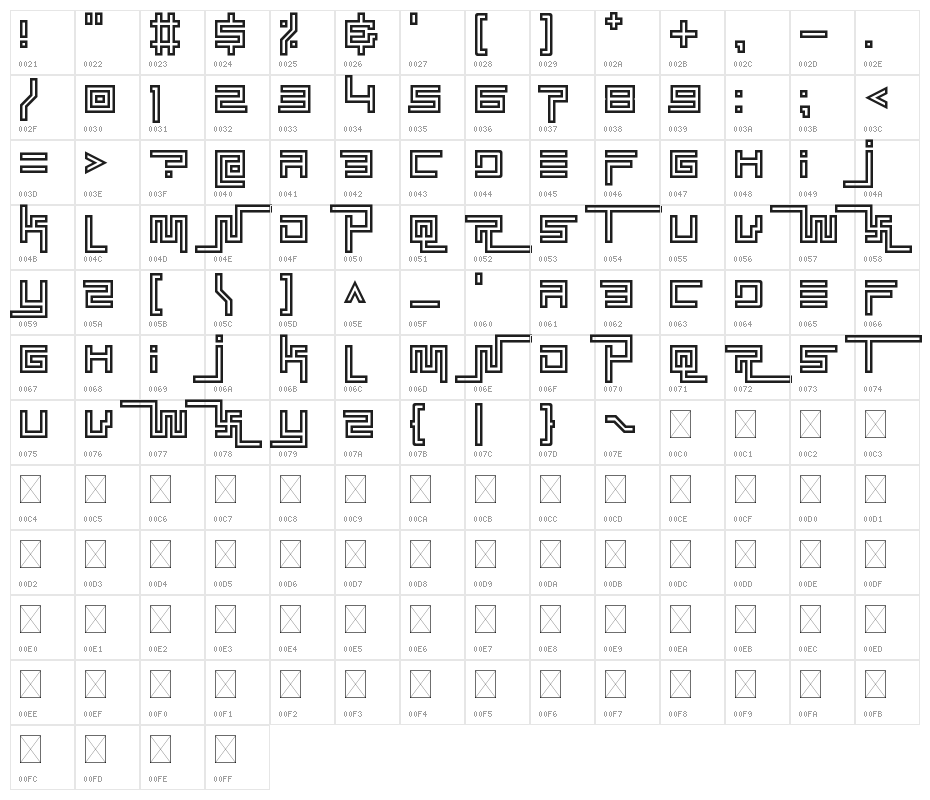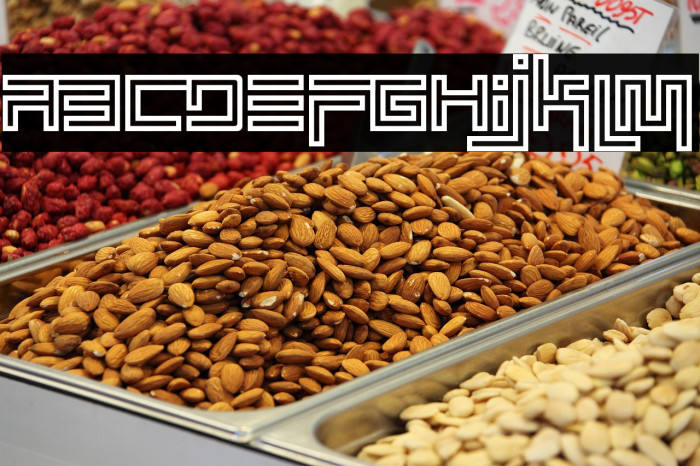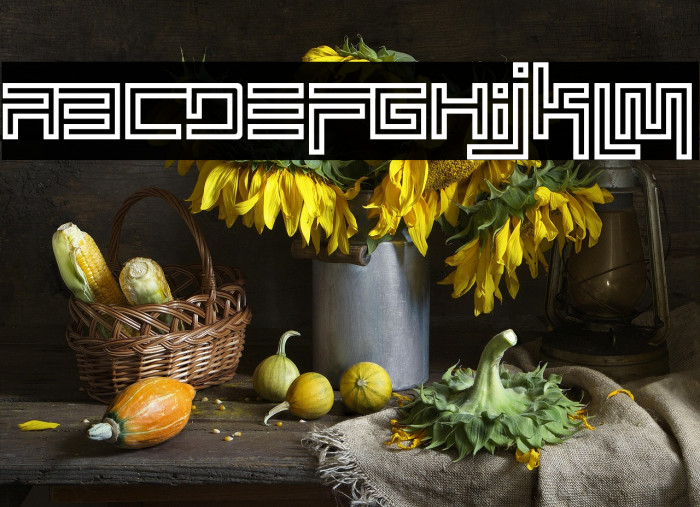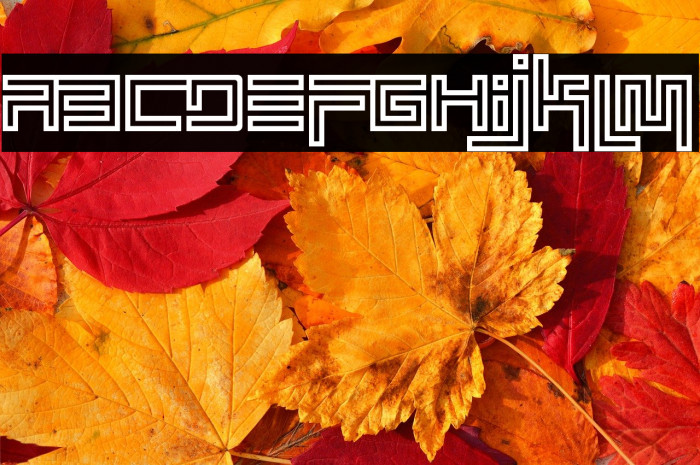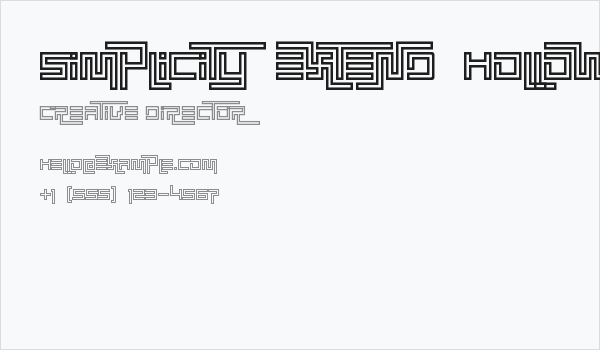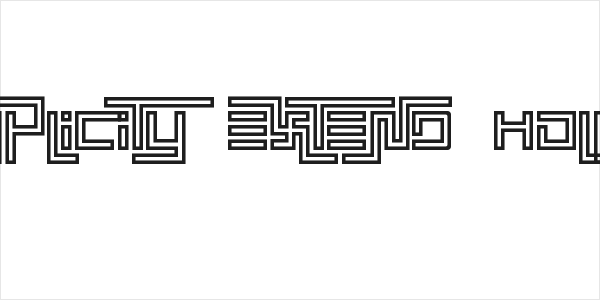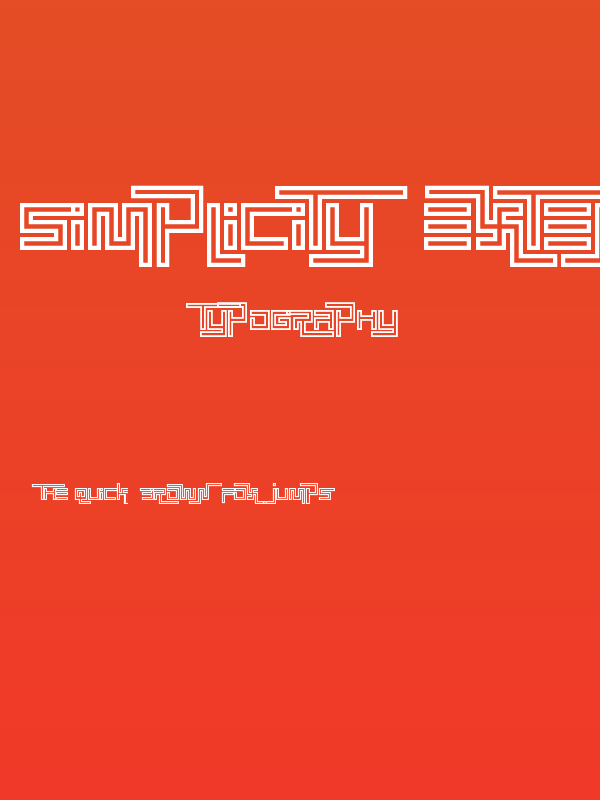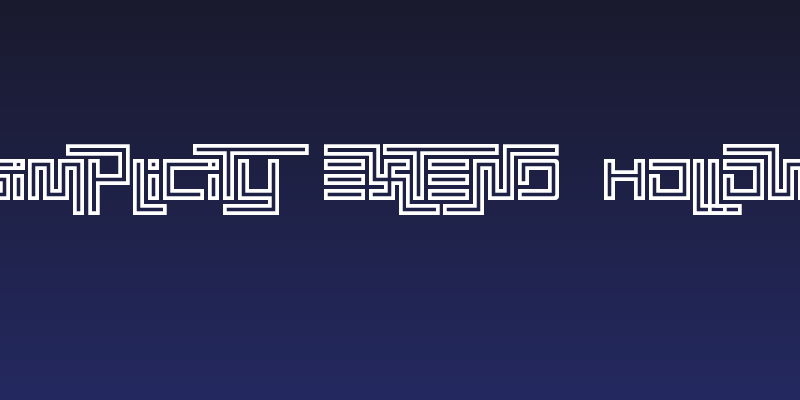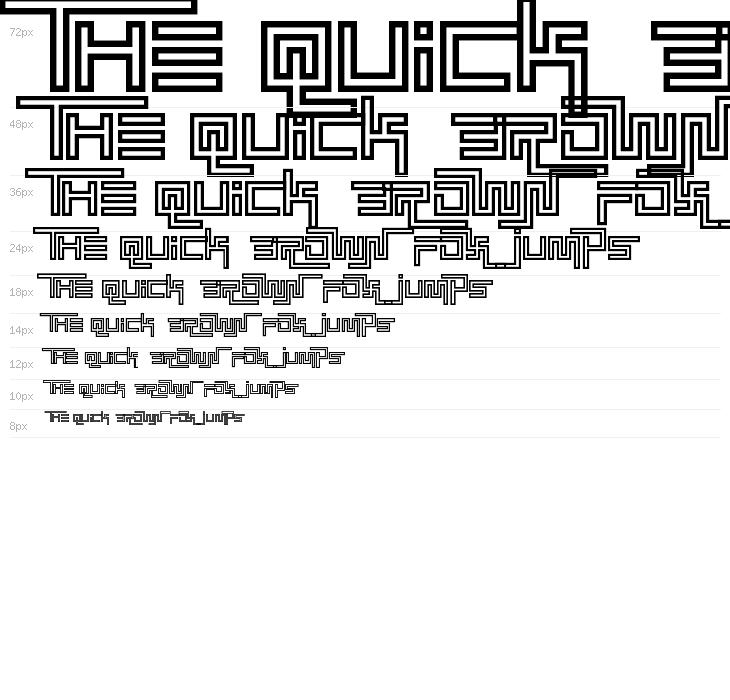
Simplicity Extend Hollow Font
Simplicity Extend Hollow Description
This font features a unique hollow design with a geometric, maze-like structure. Each character is constructed with a consistent line thickness, creating a uniform appearance. The letters and numbers are formed with angular, straight lines that give a futuristic and digital feel. The hollow nature of the font adds a sense of depth and complexity, making it stand out in any design. The spacing between characters is tight, which enhances the compact and cohesive look of the text. This font is ideal for projects that require a modern and innovative aesthetic.
Proposed ProjectsIdeal for tech-themed designs, digital art, modern posters, and innovative branding projects.